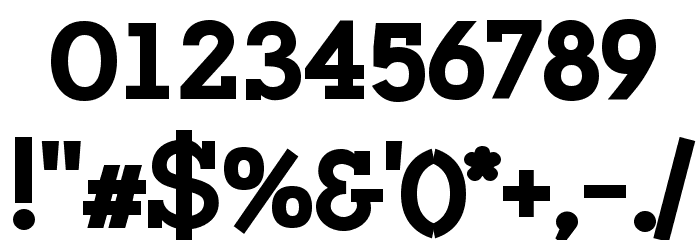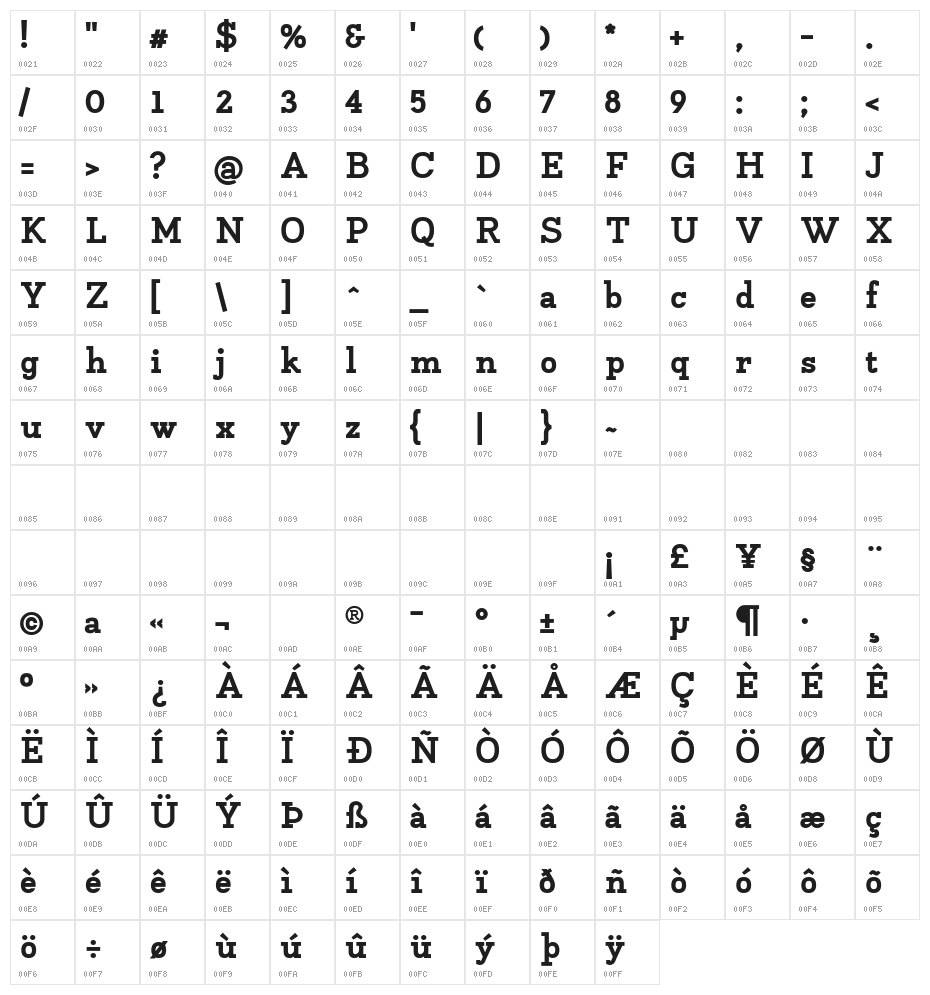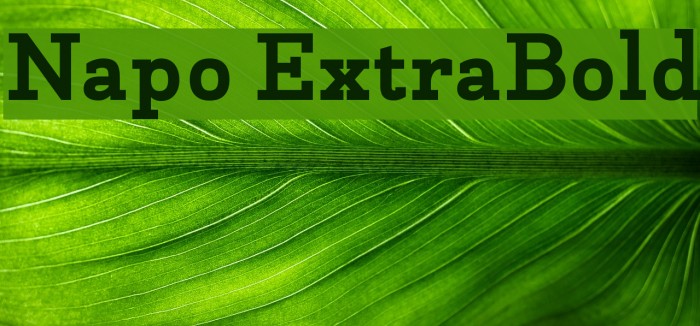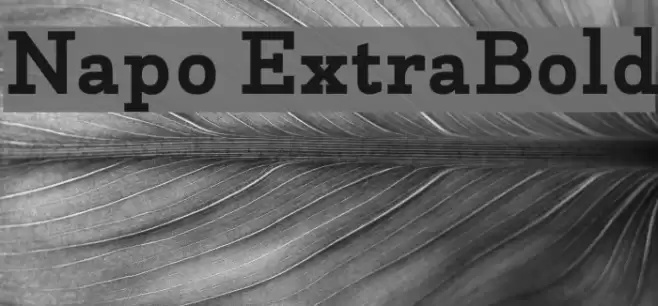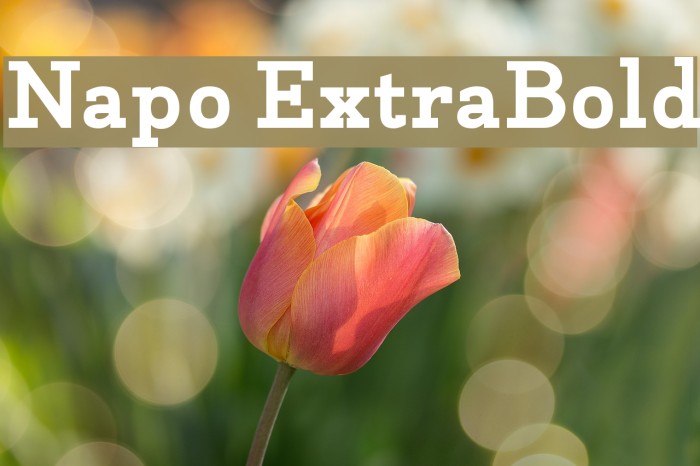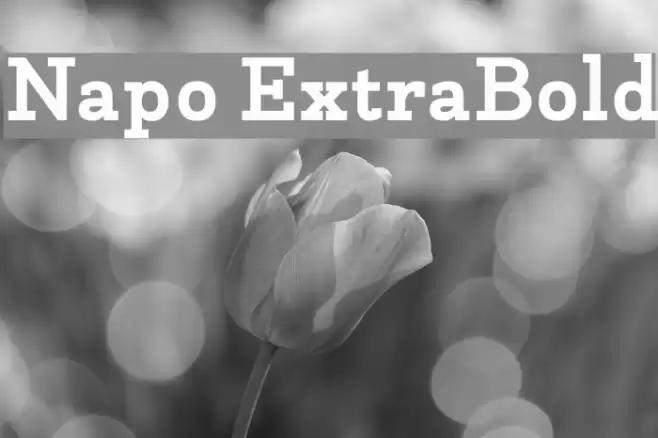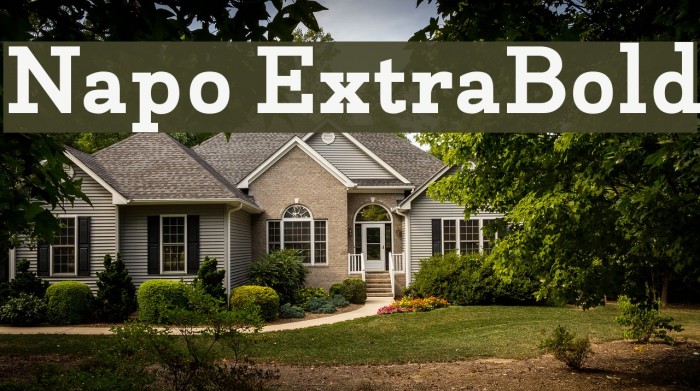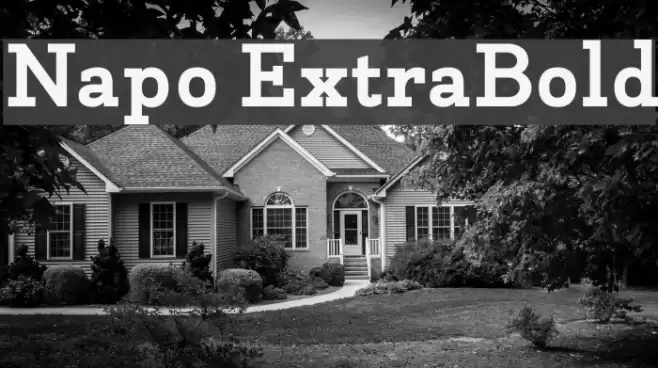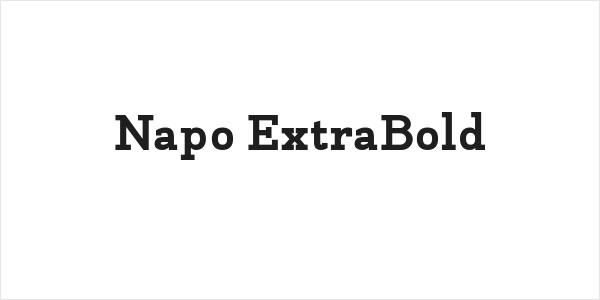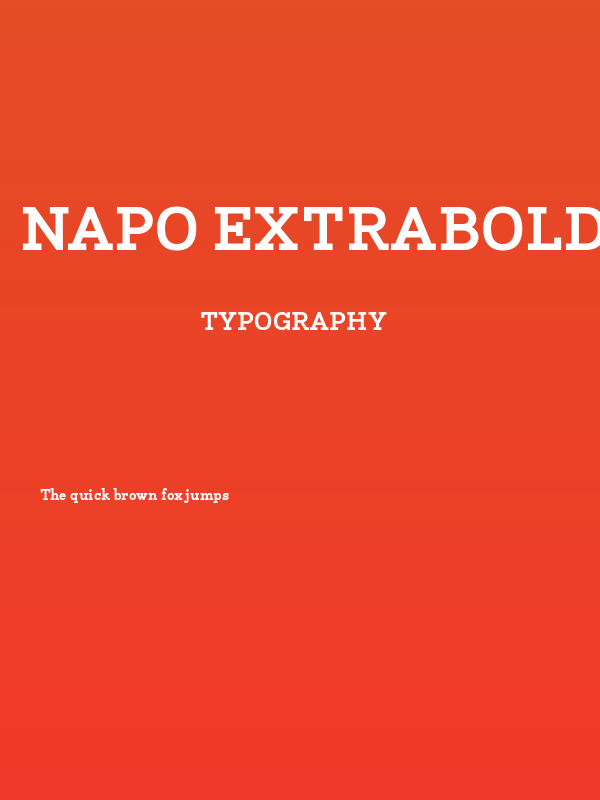
Napo ExtraBold Font
Napo ExtraBold Description
This font features a bold and robust slab serif style, characterized by thick, block-like serifs that give it a strong and authoritative presence. The uppercase letters are uniform and balanced, while the lowercase letters maintain a consistent weight, ensuring readability. The numerals are clear and distinct, with a slightly rounded appearance that complements the overall boldness of the font. Special characters are designed with the same attention to detail, making them stand out without overpowering the text. This font's extra bold weight and solid structure make it ideal for impactful designs.
| Proposed Projects | Ideal for headlines, posters, branding, and any design requiring a strong visual impact. |